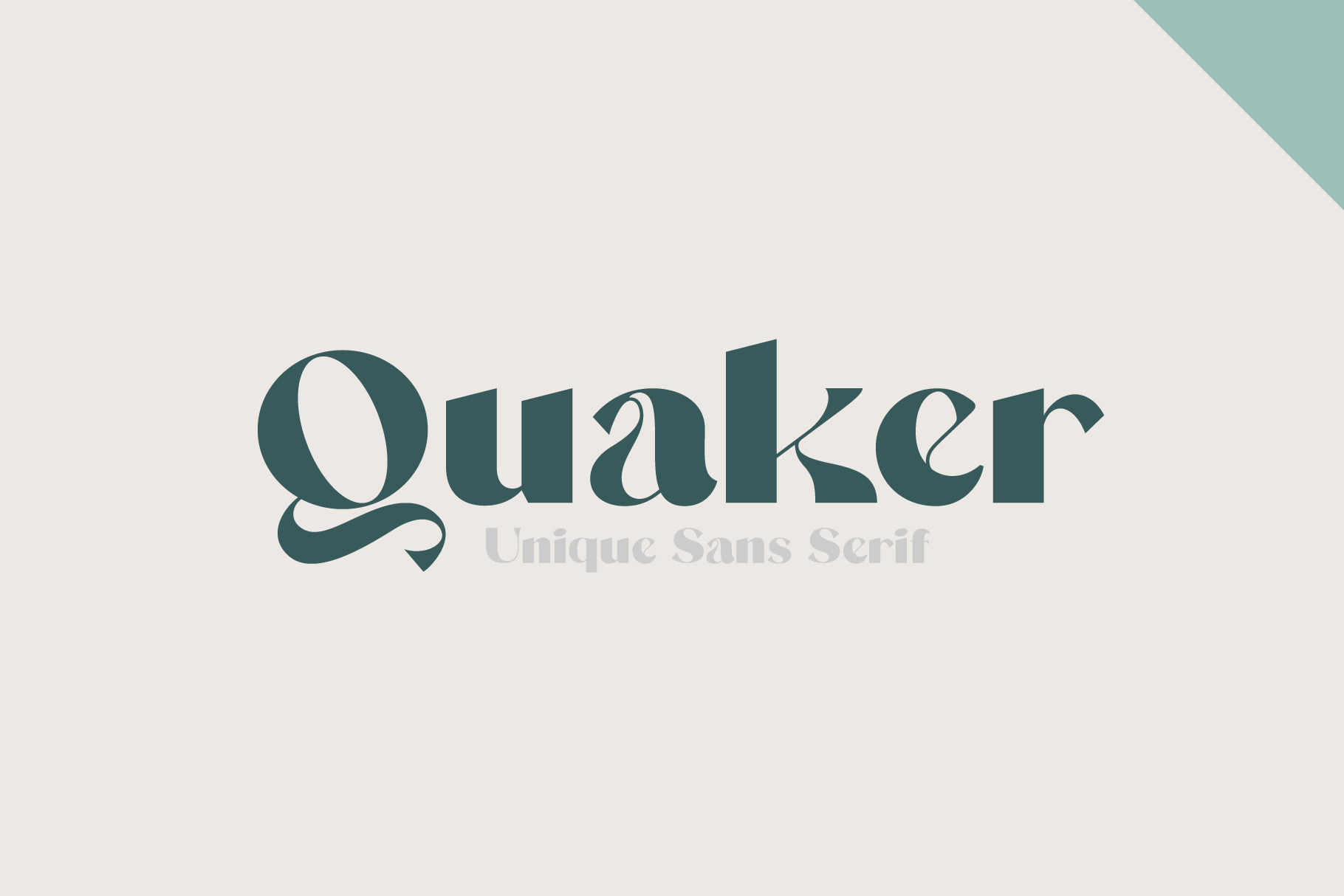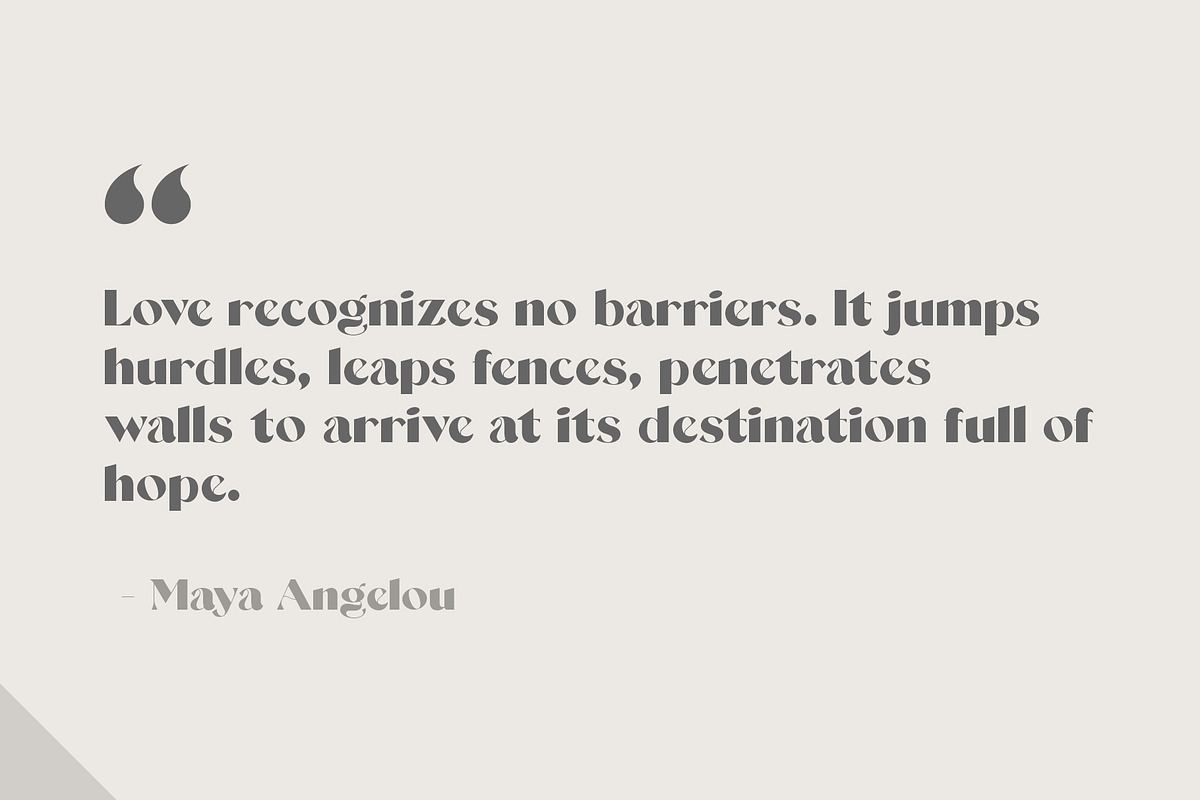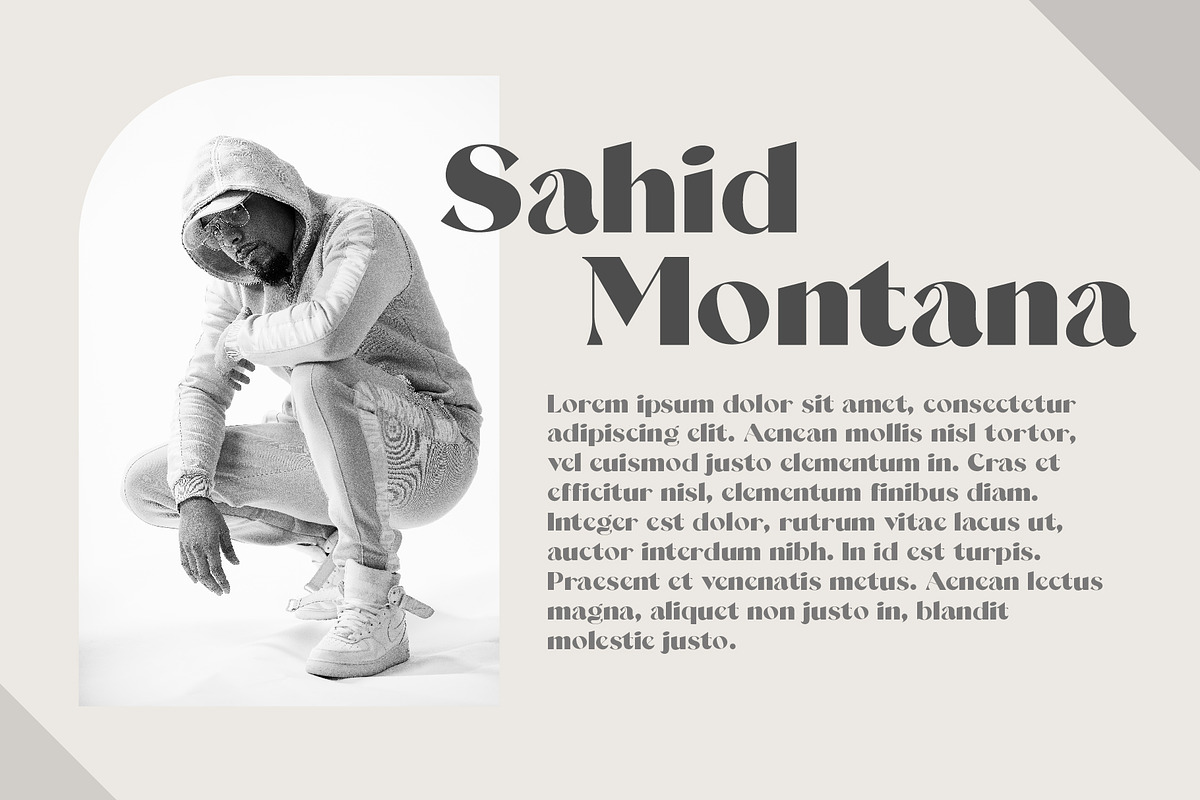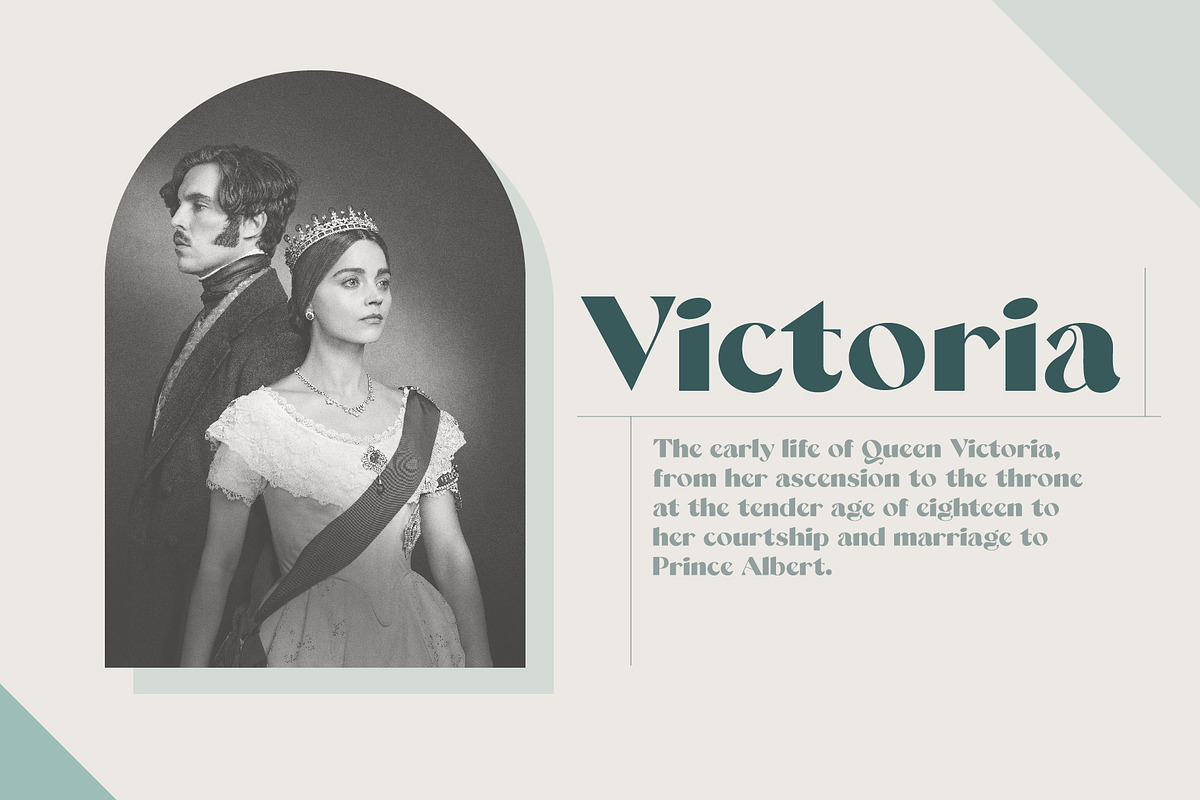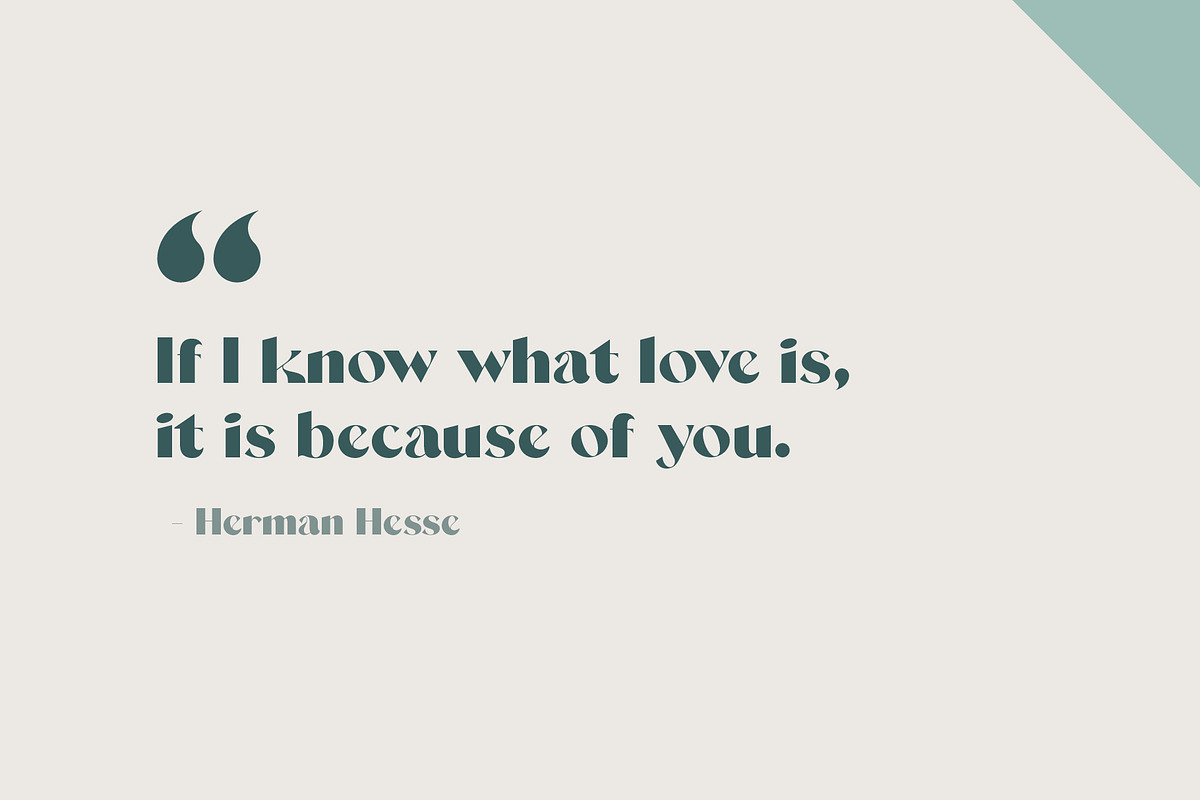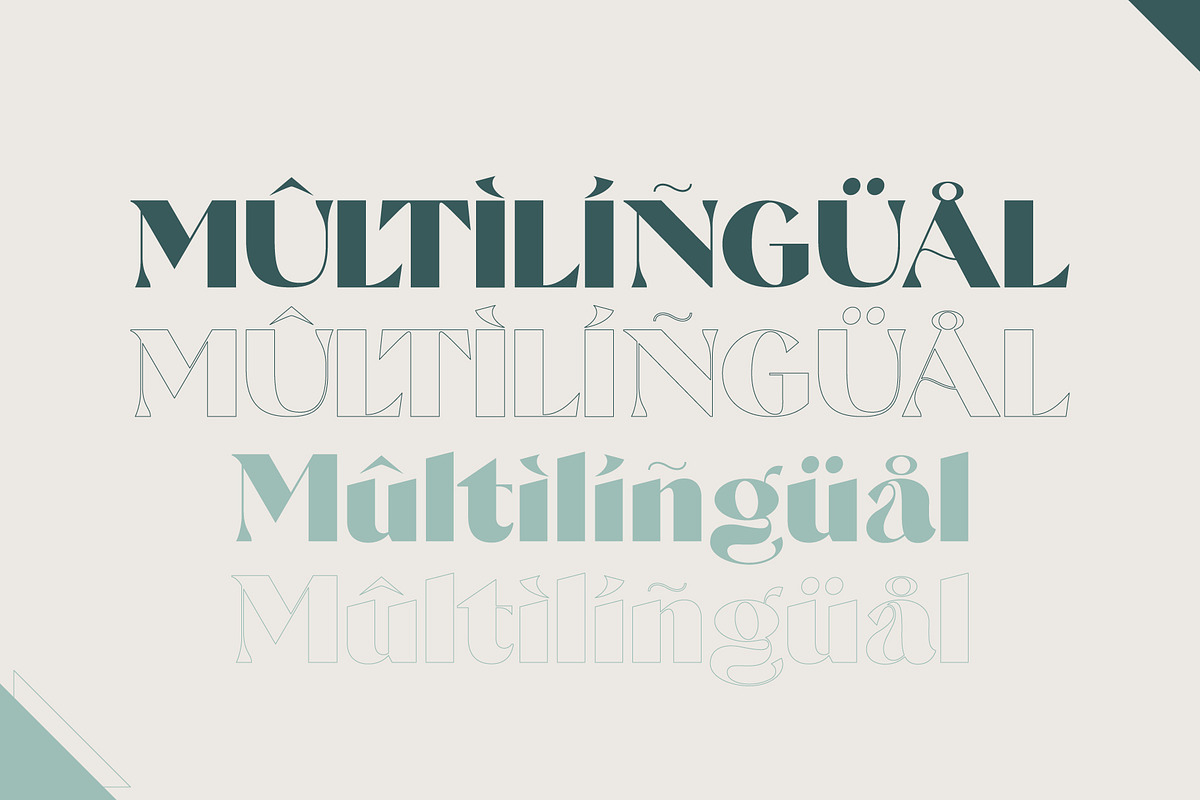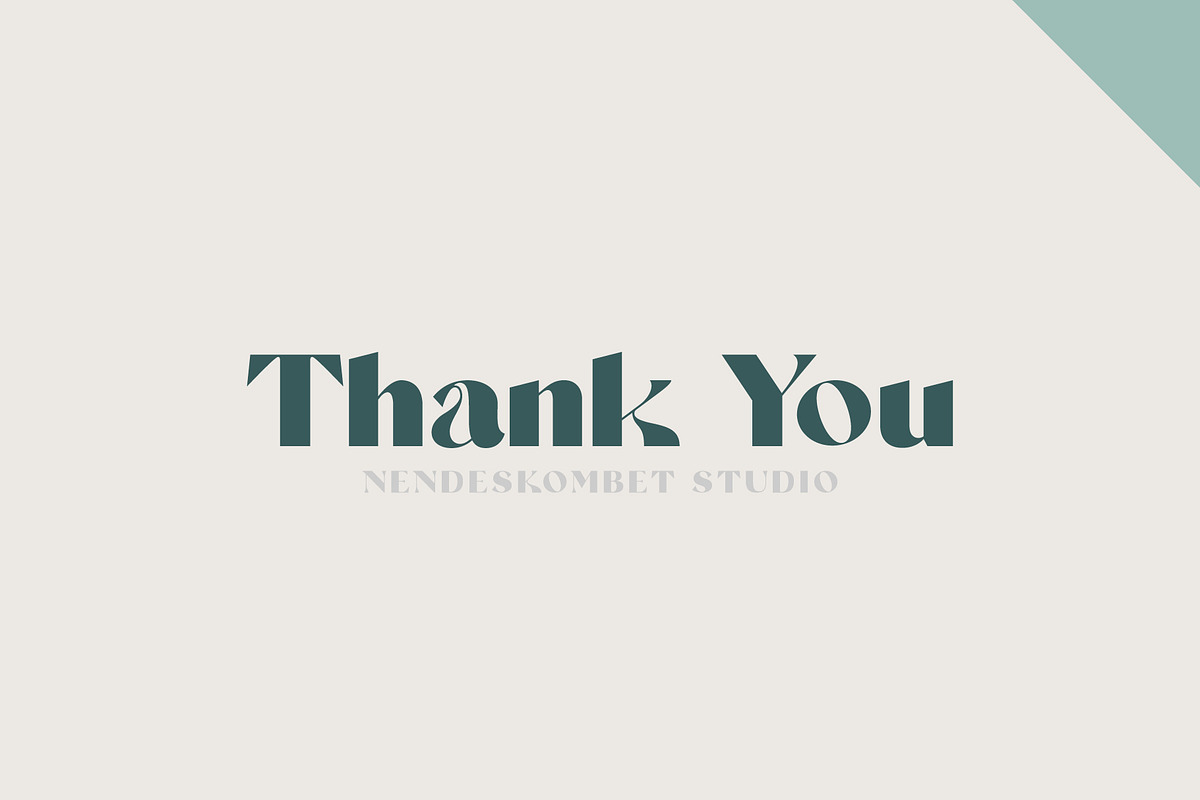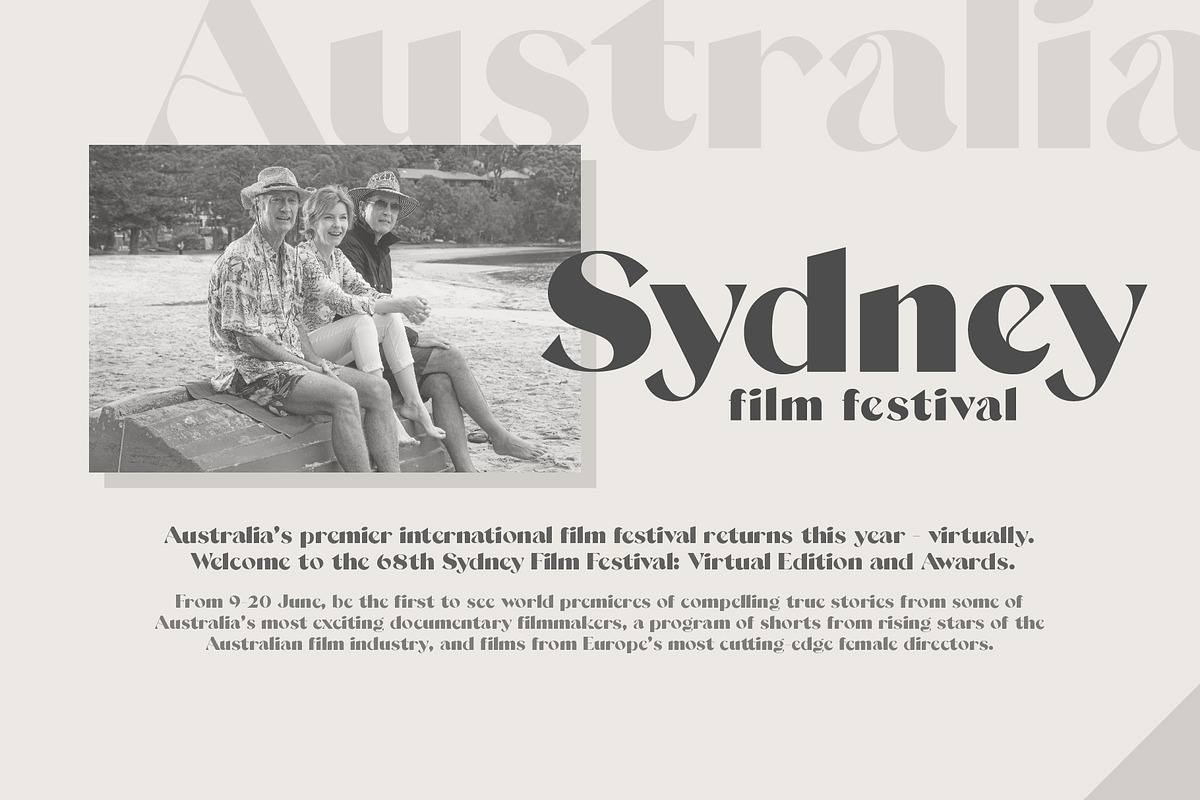
Quaker - Classic Modern Typeface
Quaker - Classic Modern Typeface by NendesKombet Studio
Quaker is a Fancy Modern vintage sans serif typeface, Create bold, gorgeous headlines and elegant designs. It come with a unique lower and uppercase plus numbers, punctuation & multilingual letters. It's a very versatile font that works great in large and small sizes. Perfect for editorial projects, Logo design, Clothing Branding, product packaging, magazine headers, or simply as a stylish text overlay to any background image.